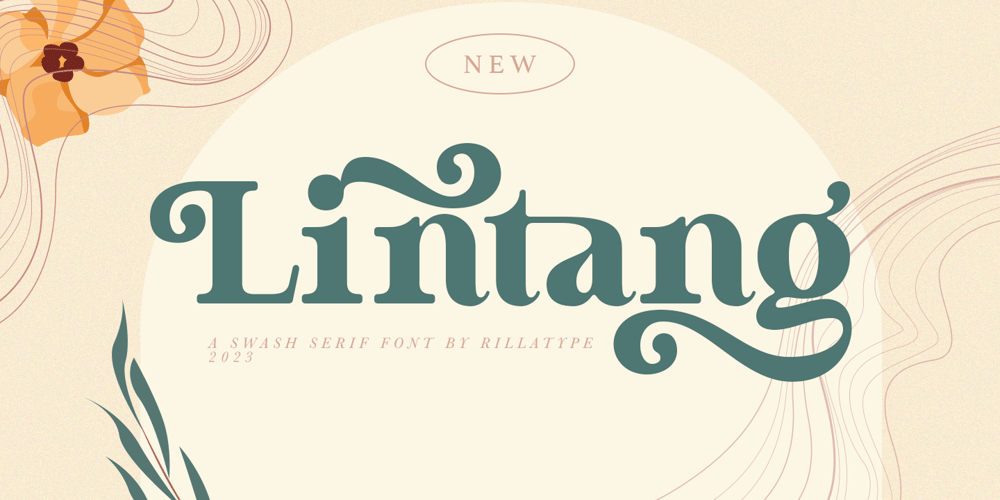
Lintang Serif Font Family was designed by Gustian Agung Asprilla and published by Rillatype. Lintang Serif contains 1 styles and family package options. Introducing, Lintang. Lintang is a display serif font that is firm yet elegant and unique because of its character and swash alternatives. Lintang is furnished with many character and swash alternatives that you can choose from making this font feel special and stand out. by using this font you can create elegant designs very easily.